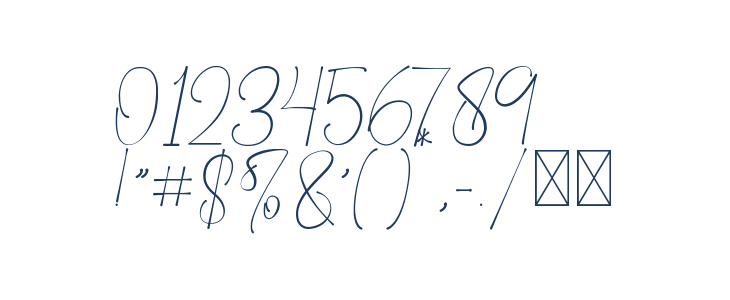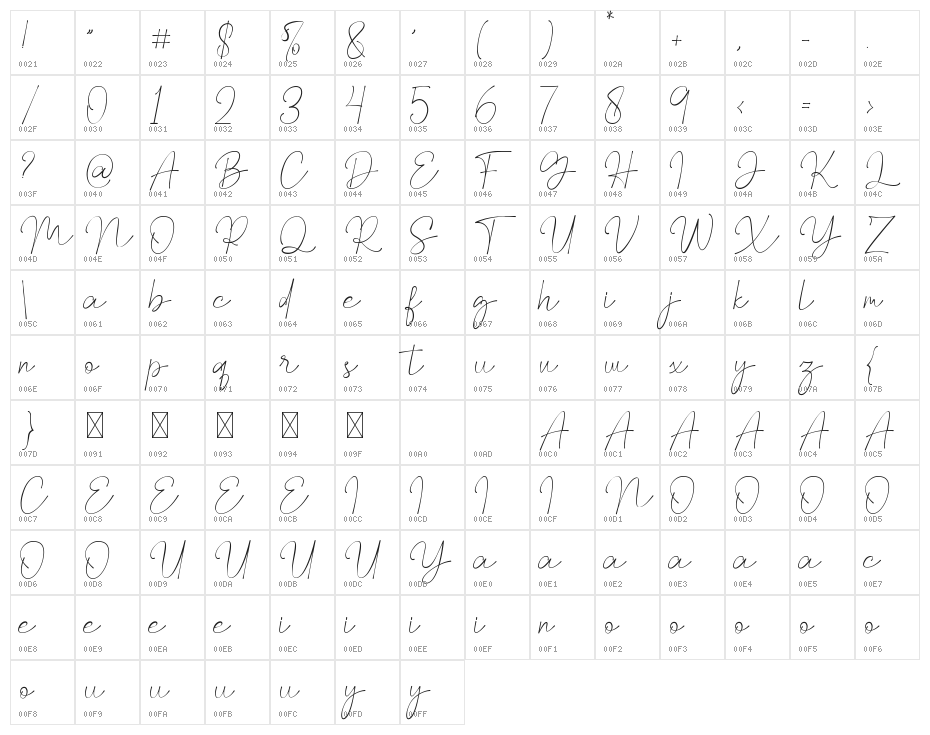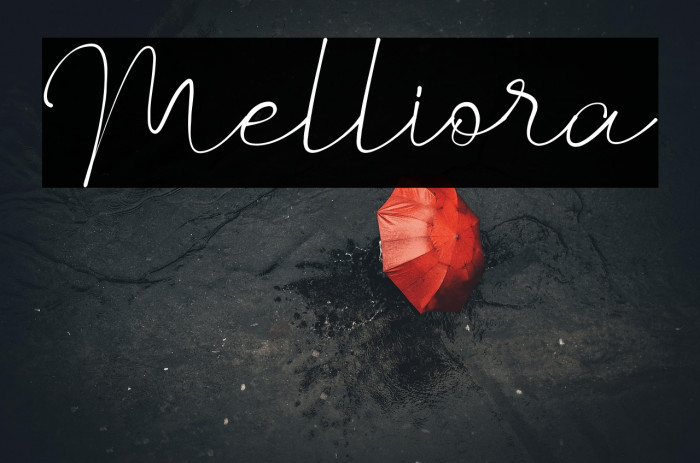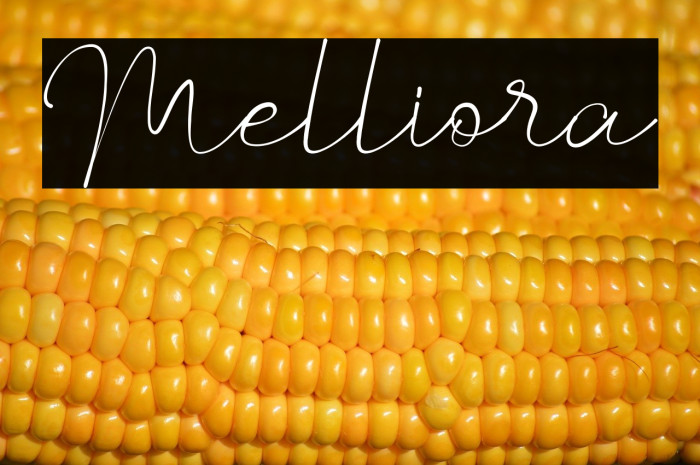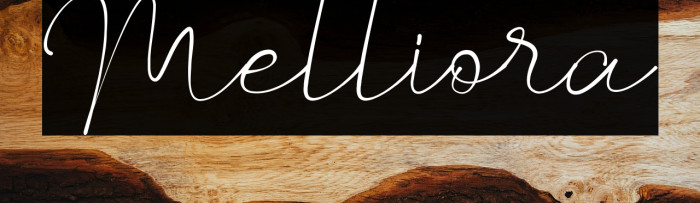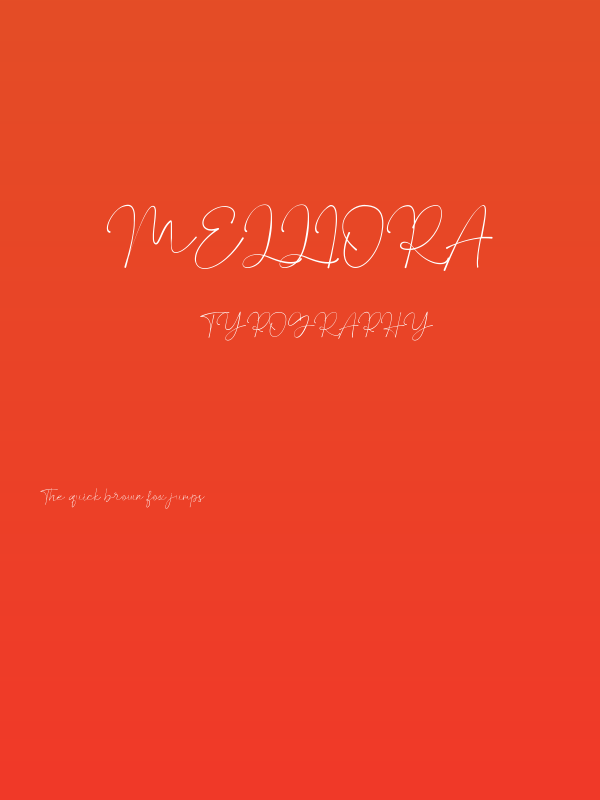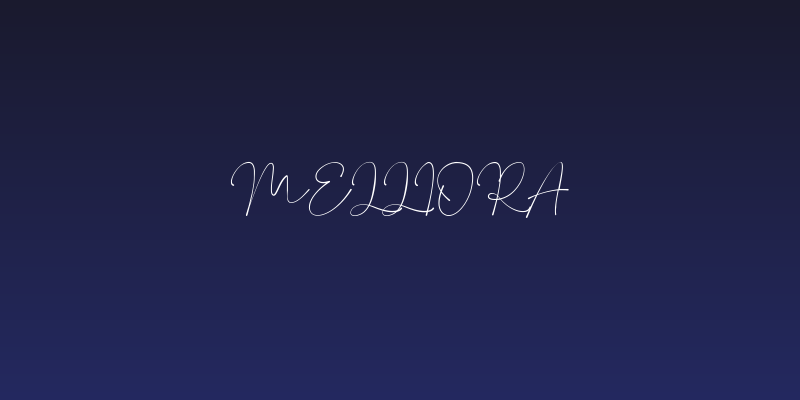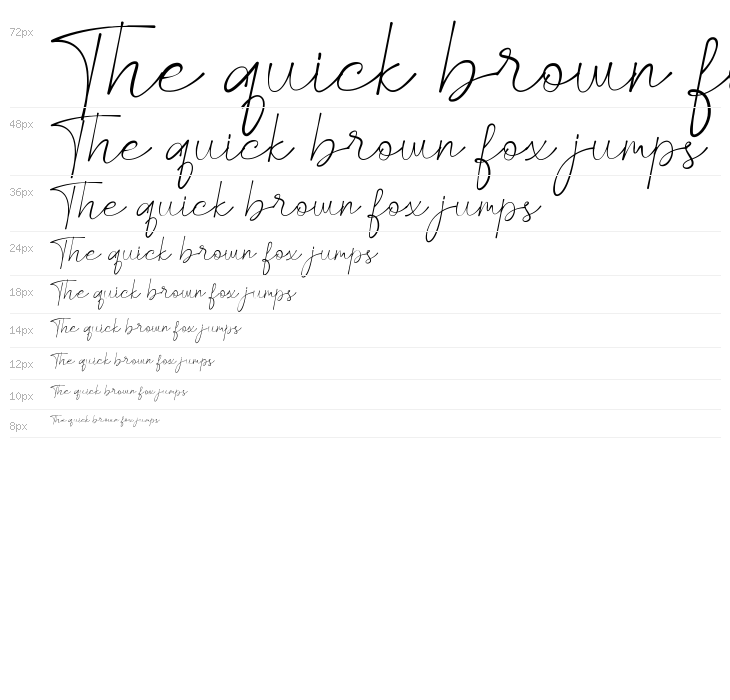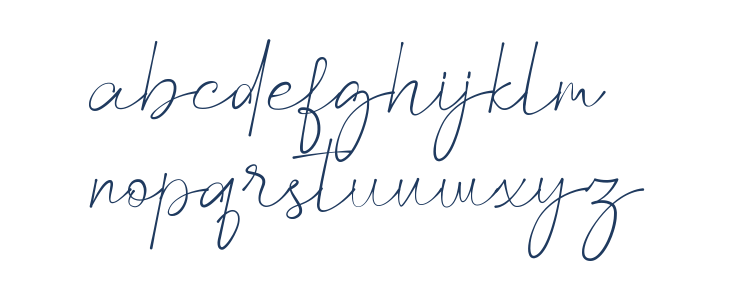
Melliora Font
Melliora Description
This font features an elegant and flowing script style, characterized by its smooth, cursive lines and graceful curves. The uppercase letters are slightly more formal, with a refined and sophisticated appearance, while the lowercase letters maintain a casual yet stylish look. The numerals are consistent with the script style, offering a cohesive and harmonious design. Special characters are seamlessly integrated, enhancing the font's versatility. The overall aesthetic is both modern and timeless, making it suitable for a variety of design applications.
| Use Case | Logos, Invitations, Greeting Cards |
| Proposed Projects | Ideal for wedding invitations, greeting cards, branding, and elegant logos. |